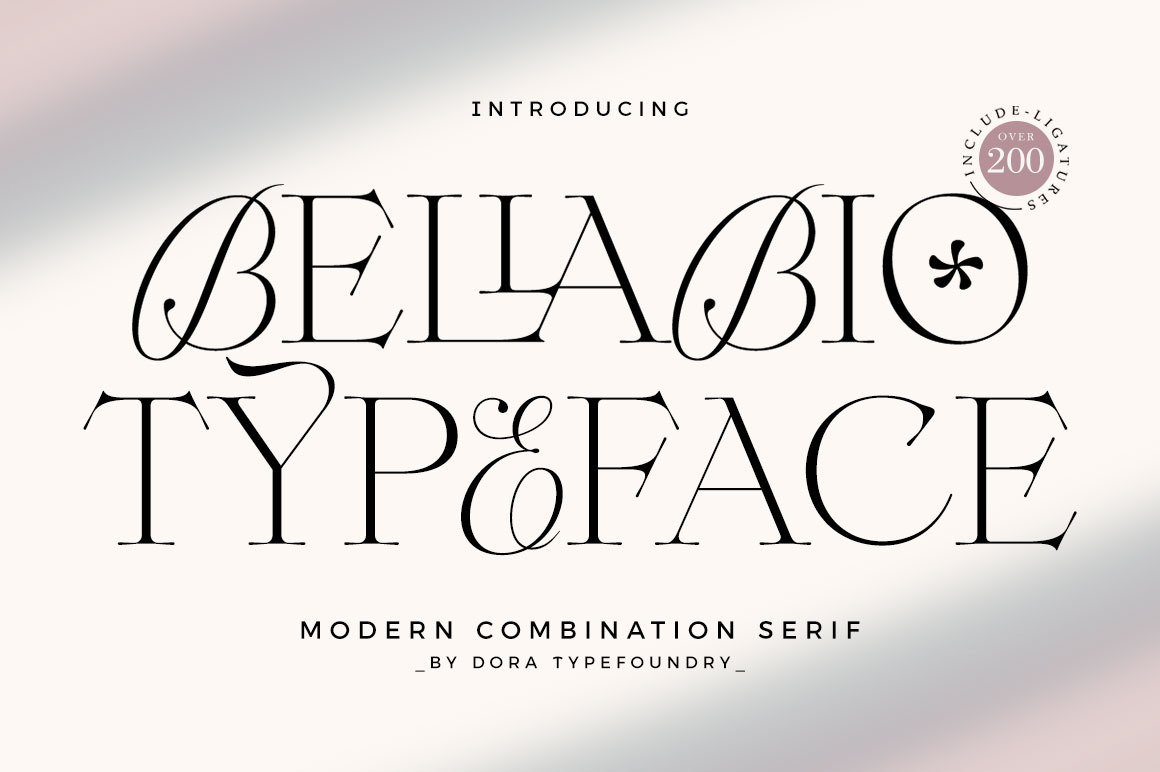
Bellabio Typeface
Introducing, Bellabio is an elegant modern Serif Font that gives a romantic feel to every curve that has smooth edges and a trendy look to your designs. This font also has a very fancy uppercase alternative to combine. Bellabio has 200+ Ligatures included, it's really helpful in creating your project titles: like fashion, magazine, logo, branding, photography, invitations, wedding invitations, quotes, blog headers , posters, advertisements, postcards, books, websites, etc.
- Full set of uppercase, lowercase letters
- 200+ Ligatures
- Numbers, symbols & punctuation
- Characters with accents
- Supports Multiple Languages